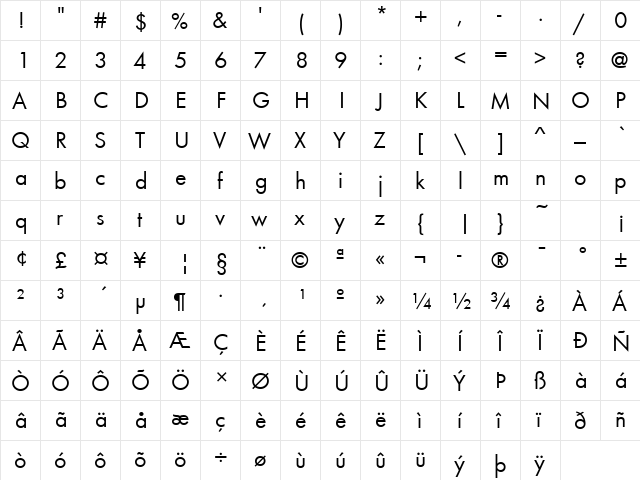
FuturaT Regular
Design Context for FuturaT Typeface
FuturaT channels digital-age aesthetics through its sharp, structured letterforms — ideal for brands that want to signal innovation.
Pro Tip: Try FuturaT with generous letter-spacing in UI labels and navigation — the geometric forms benefit from room to breathe.